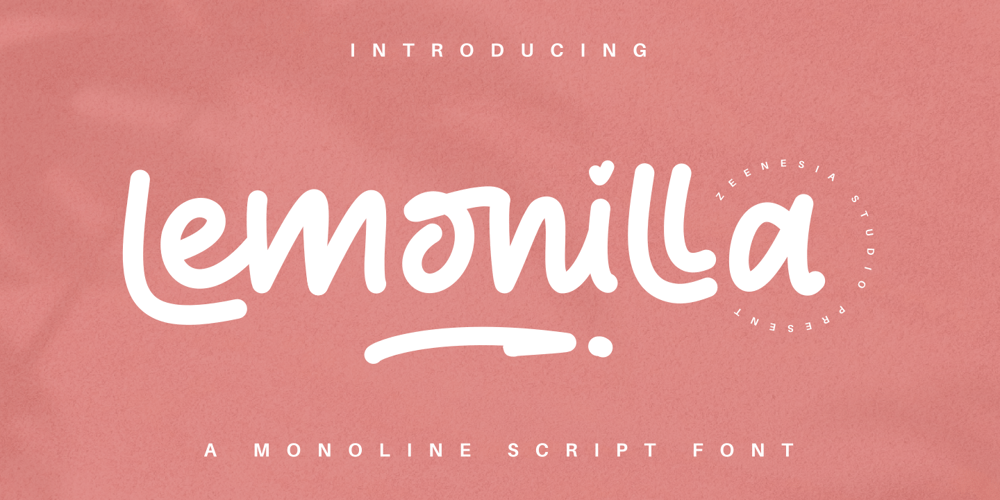
Lemonilla Font Family was designed by Zeenesia Studio and published by Zeenesia Studio. Lemonilla contains 1 styles and family package options. Lemonilla! This script font is bouncy, charming and perfect for many design projects! I’ve made this font as smooth as possible, reducing the amount of nodes in each glyph to ensure optimal cutting with Cricut, Silhouette or other craft machines. What’s Included :Standard glyphsLigatures and SwashMultilingualWorks on PC & Mac Simple installationsAccessible in the Adobe Illustrator, Adobe Photoshop, Adobe InDesign, even work on Microsoft Word. PUA Encoded Characters – Fully accessible without additional design software. Fonts include multilingual support Image used : All photographs/pictures/vector used in the preview are not included, they are intended for illustration purpose only.Cheers!Thank You